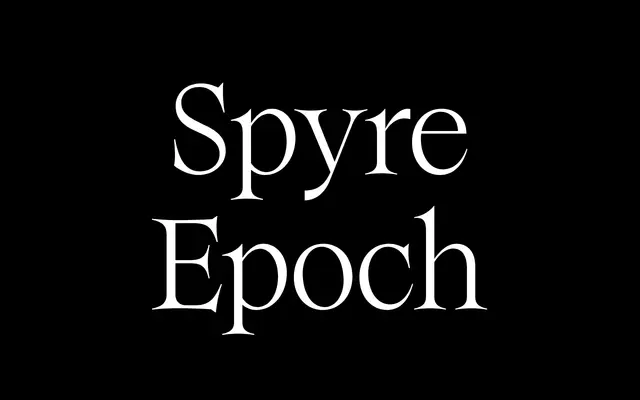
Spyre Epoch specimen from British Standard Type
A neo-classical transitional serif with heightened contrast and pointed splayed serifs, developed as the more ornate counterpart to the plainer Spyre text family.
Originating from the type design programme at Kingston School of Art, Spyre Epoch pushes back against the rationalist tendencies of its sibling family by adopting traditional cap widths, lower x-height and sharper, more expressive serifs reminiscent of engraving-era models. Where Spyre reads as a clean contemporary text face, Epoch draws on Oldstyle and transitional references, including Times New Roman and Plantin, for a higher-contrast result suited to display and editorial work with classical flavour. The family ships in seven weights with a variable font also available.
Described as neo-classical, Spyre Epoch sits firmly in the transitional serif tradition with heightened contrast, pointed and splayed serifs, and traditional cap widths that reference engraving-era models such as Times New Roman and Plantin.